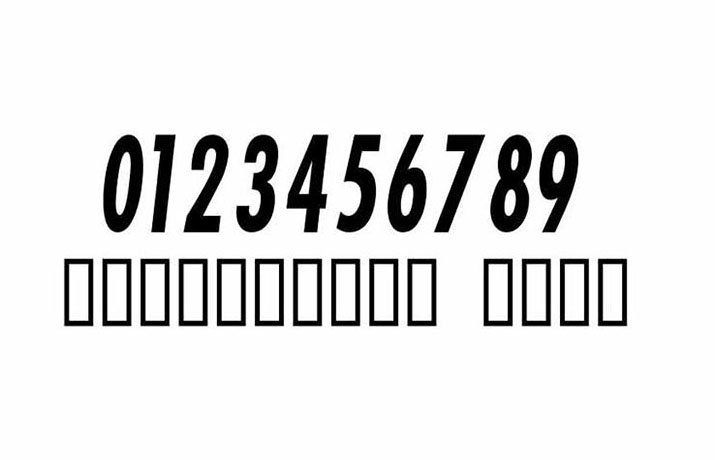
NFL Steelers Font is a fancy display typeface that has a bold and impactful texture. It was designed and published by Fontographer.
It is a condensed typeface made with solid and thick strokes just to provide stability in designs. So it is the best option for display design.
It is specially made for bold headlines to give just a solid clean texture. So, you can use it for social media posters, banners, headers, titles, flyers, magazines, branding, logo designs, gaming, and more.
- Because of its fine texture, you may use it to create book covers, unique logos, website headers, movie posters, game graphics, titles, banners, signs, flyers, cards, branding, logo designs, social media advertisements, product designs, game titles, t-shirt printing, and anything else you can imagine.